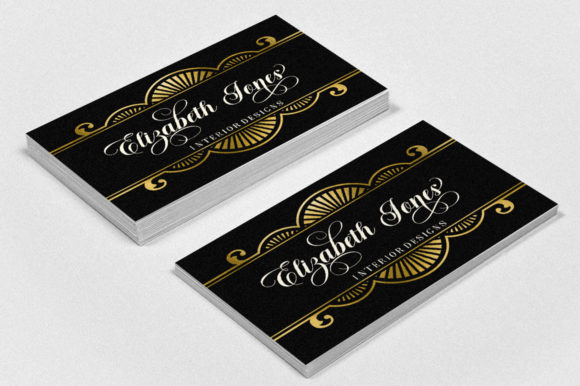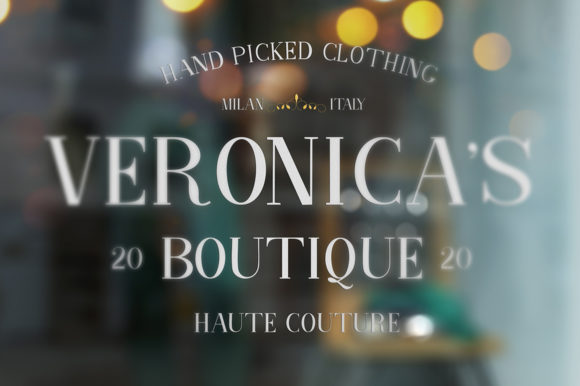
Straight Font
db-ku.com - Script & Handwritten -- Straight is a lovely and elegant duo font (serif and script). Incredibly versatile, this font fits a wide pool of designs, elevating them to the highest levels. Add this font to your favorite creative ideas and notice how it makes them come alive!